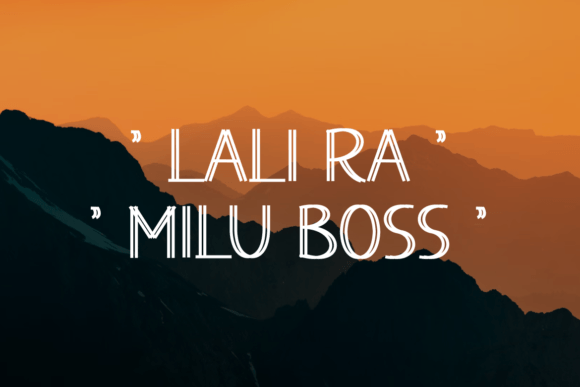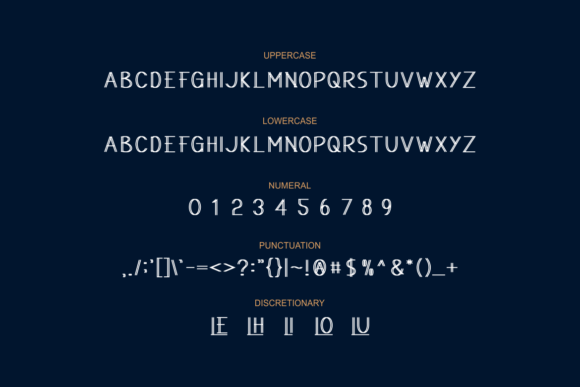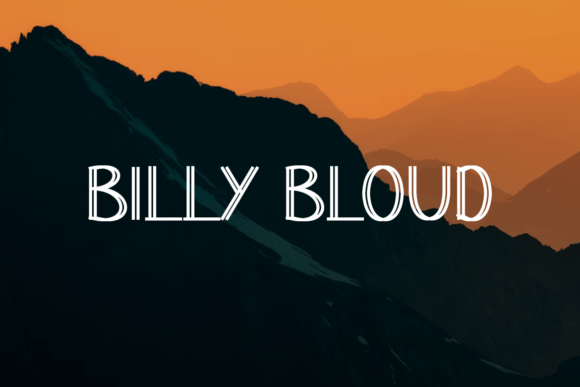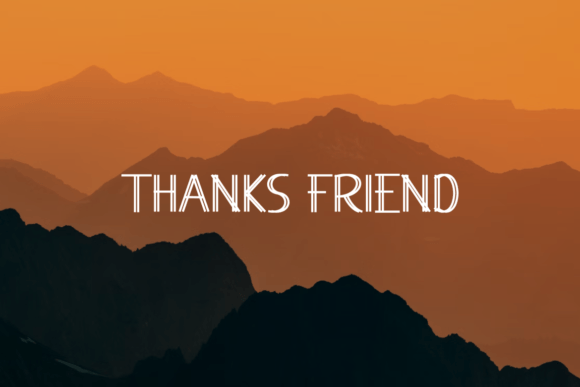
The Perfect Vintage Touch: Unlocking the Magic of the Bleoblue Font
Remember that moment when you stumbled upon an old, dusty book in a thrift store, and the way the sunlight filtered through its yellowed pages transported you to a bygone era? For designers, that feeling of nostalgia is a powerful catalyst for creativity. It’s a reminder that the past can inspire the present, and that’s exactly what the Bleoblue Font is all about.
Bleoblue Font feels playfully nostalgic and delivers an incredible vintage aesthetic that can elevate any design project. Its unique character is a perfect blend of modernity and timelessness, making it an invaluable asset for designers looking to add a special touch to their work.
With its versatility and charm, the Bleoblue Font is a valuable addition to any designer’s toolkit. Whether you’re working on a retro-themed campaign, a classic logo, or a vintage-inspired advertisement, this font is sure to bring a touch of elegance and sophistication to your design.
Bleoblue Font Key Features
- Unique Characteristics: Bleoblue Font features a unique blend of modern and vintage elements, with a distinctive blue hue that adds a touch of sophistication and elegance to any design.
- Font Family: Bleoblue Font is a sans-serif font family, making it ideal for use in corporate branding, advertising, and editorial design, where clarity and readability are essential.
- Scalability: Bleoblue Font is highly scalable, meaning it looks great in both small and large sizes, making it perfect for use in various design applications, from business cards to billboards.
Bleoblue Font Review
I recently had the chance to work with the Bleoblue font, and I must say it’s an interesting addition to the world of typography. Here are my thoughts on what works well and what doesn’t.
- The Bleoblue font has a unique, futuristic feel to it, making it perfect for sci-fi or tech-related projects.
- The font is highly legible, even at smaller sizes, which is a must for any font used in digital media.
- The font is highly customizable, with a wide range of weights and styles to choose from.
- The font may not be suitable for projects that require a more traditional or classic look.
- The font can be quite busy, which may make it difficult to read for some users.
- The font’s high contrast between light and dark areas can cause eye strain in some cases.
Overall, the Bleoblue font is a solid addition to any designer’s toolkit. While it may have some limitations, its unique style and high level of customization make it a great choice for the right project. With some careful consideration of its limitations, the Bleoblue font can be a powerful tool for creating engaging and eye-catching designs.
Bleoblue Font Practical Application Guide
Getting Started with Bleoblue Font
Tips for Getting the Most out of Bleoblue Font
To get the most out of the Bleoblue font, use it in combination with other design elements, such as shapes and images. You can also experiment with different font sizes, colors, and styles to create a unique and eye-catching design.
Common Use Cases for Bleoblue Font
The Bleoblue font is commonly used in graphic design, digital art, and creative writing. It is particularly well-suited for use in titles, headings, and other emphasis text.
Q: Can I customize the Bleoblue Font for my specific design needs?
Yes, the Bleoblue Font is designed to be highly customizable. The font includes a range of OpenType features, such as stylistic sets and ligatures, which can be accessed through the font’s character map or using OpenType features in compatible applications. Additionally, the font can be customized using font editing software, such as FontLab or Glyphs, to create custom variations and styles.